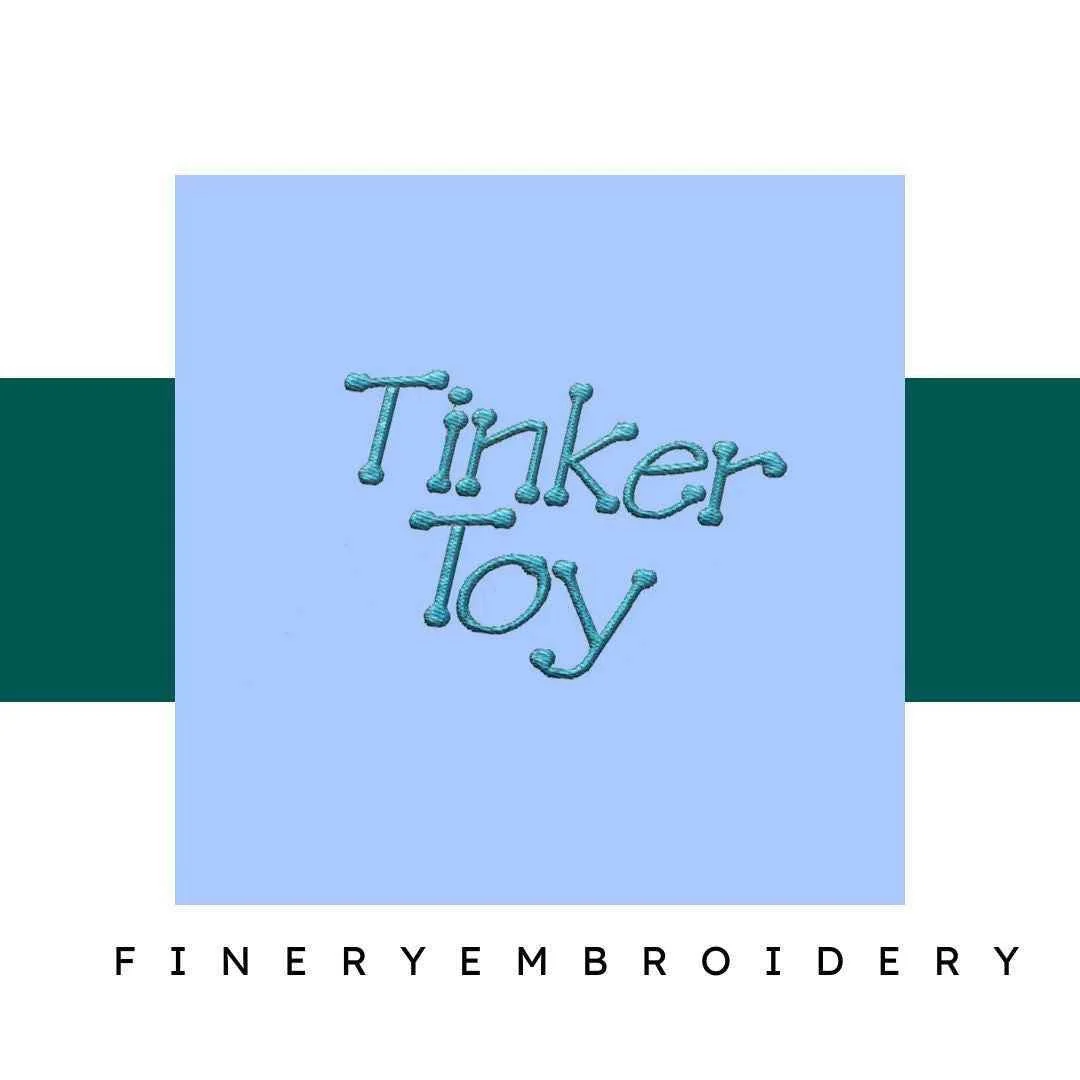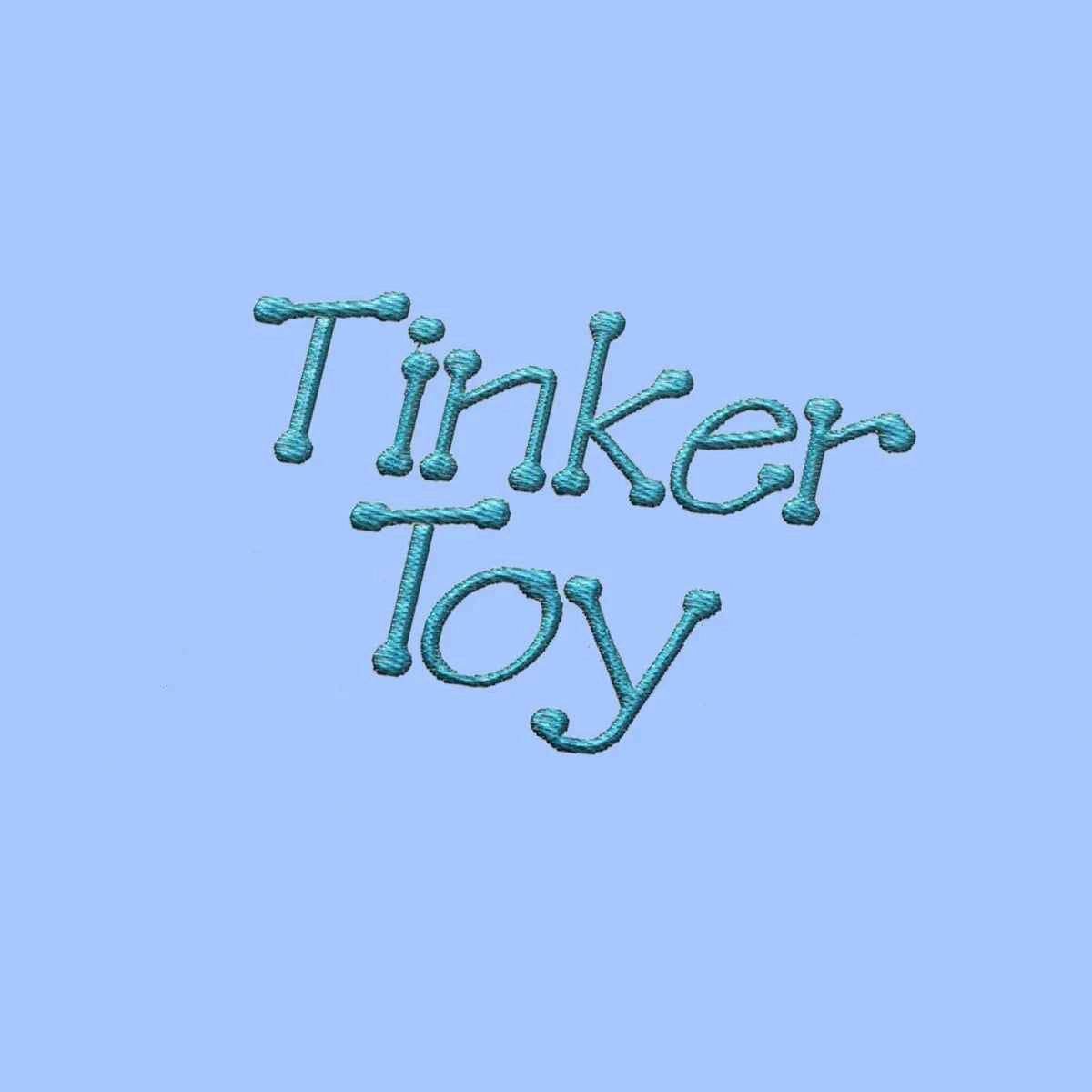
Tinker Toy Embroidery alphabet Font Set
Unleash Your Creativity with the Tinker Toy Embroidery Alphabet Font Set – Transform your projects into elegant masterpieces!
Introducing the Tinker Toy Embroidery Alphabet Font Set, your new go-to for adding a touch of whimsy and sophistication to any embroidery project. This elegantly designed font set is not just a tool; it’s a canvas that allows your creativity to flourish. Perfect for personalizing garments, home decor, or unique accessories, this set provides everything you need to make your creations stand out.
Why You'll Love This Design
The Tinker Toy Embroidery Alphabet Font Set features an intricate design that radiates elegance. Each letter has been crafted with precision, ensuring that your embroidery projects not only look sophisticated but also showcase your personal style. You'll love how effortlessly these fonts come together to create stunning visuals that captivate the eye.
Creative Applications
This versatile font set is perfect for a wide array of creative applications. Whether you’re personalizing a child’s blanket, decorating a kitchen towel, or adding names to your favorite apparel, the Tinker Toy Alphabet Font Set elevates your designs. Let your imagination run wild as you explore its potential for various embroidery projects!
Digitized for Passionate Embroiderers
We know the joy of crafting with high-quality designs. That’s why we’ve digitized the Tinker Toy Embroidery Alphabet Font Set for passionate embroiderers just like you. Our team spent countless hours perfecting each character, ensuring seamless integration into your embroidery machine. You’ll find that working with this set is not only enjoyable but also incredibly rewarding.
- Perfect for a variety of projects, from home decor to personalized gifts.
- Designed to inspire creativity and elevate your embroidery skills.